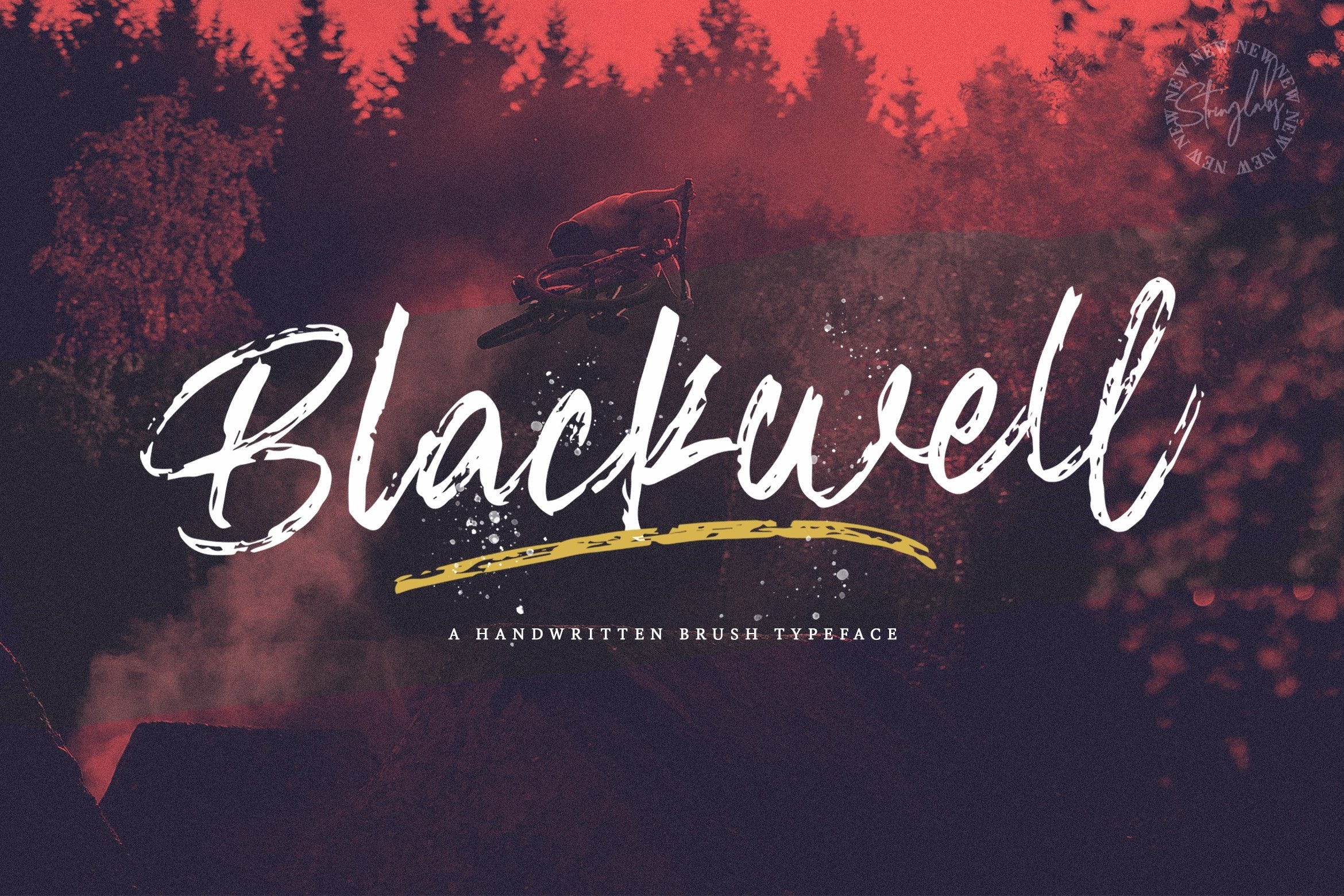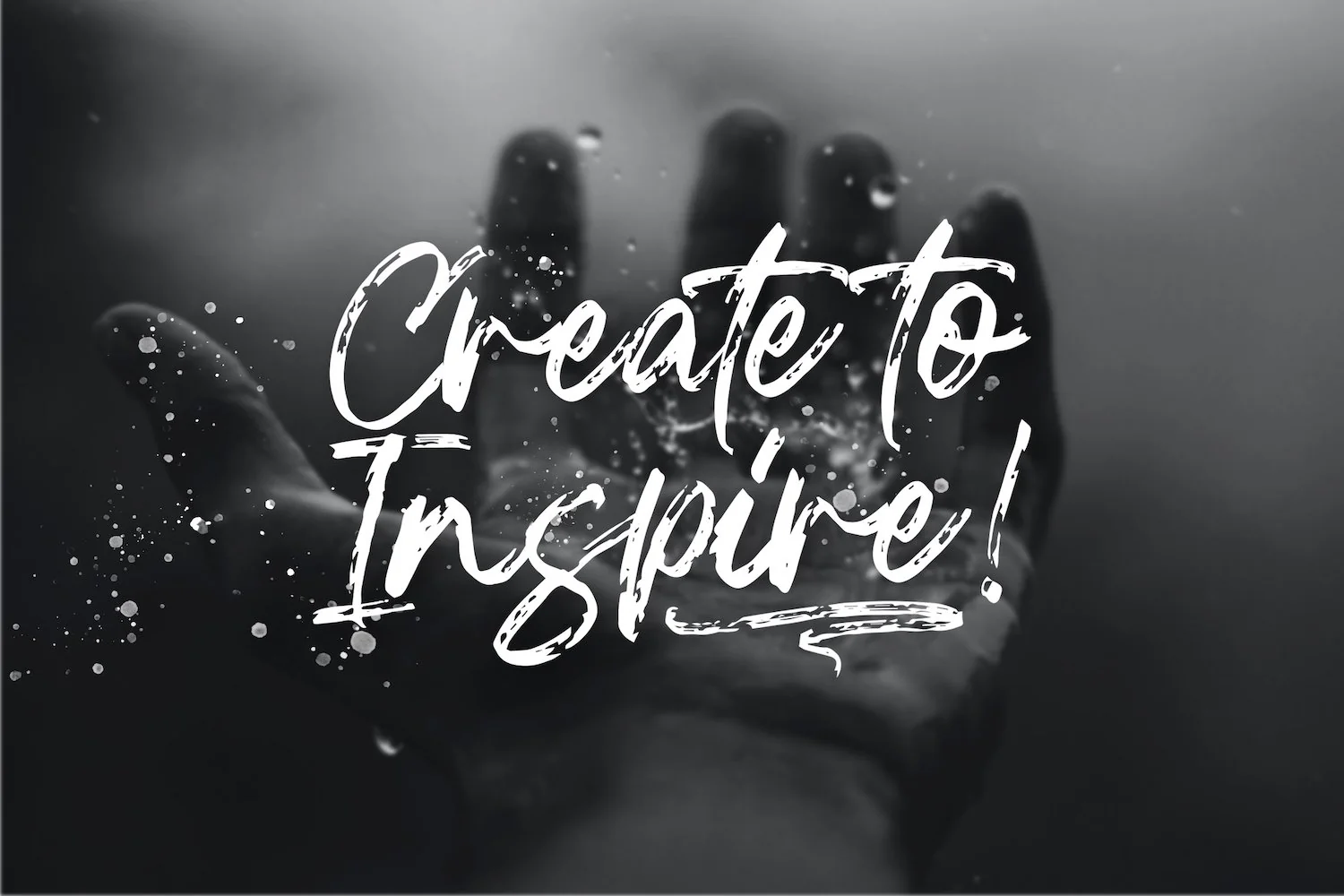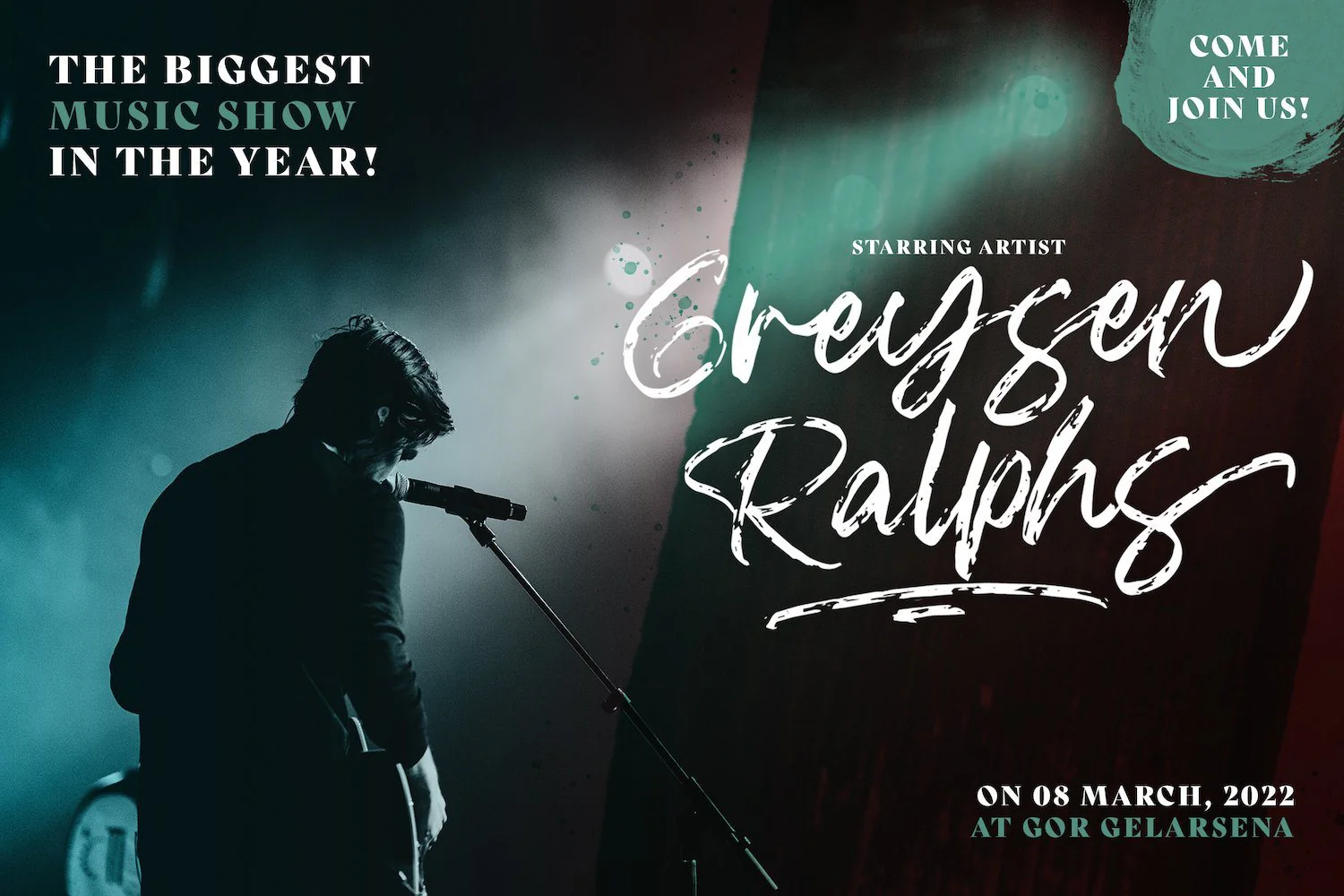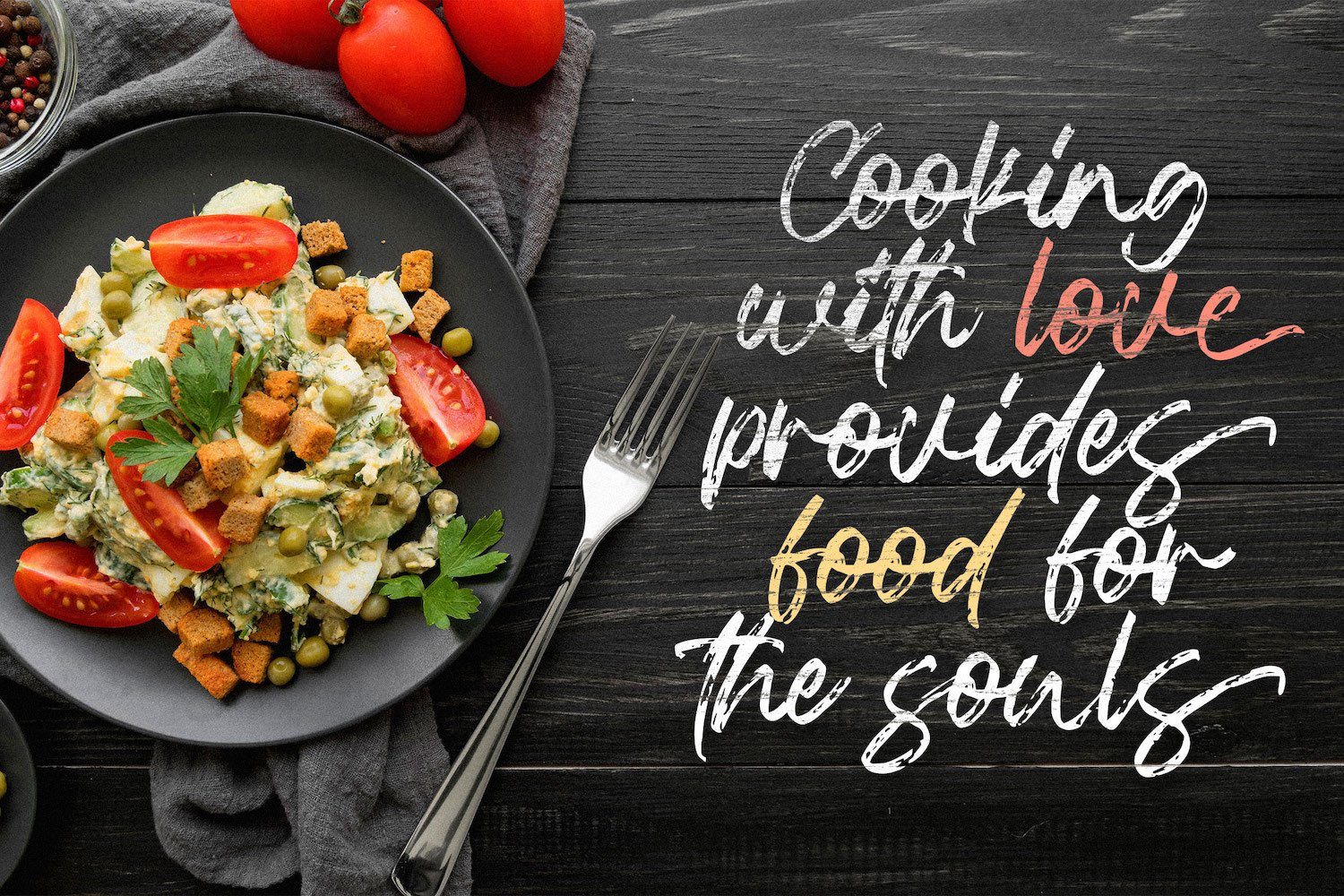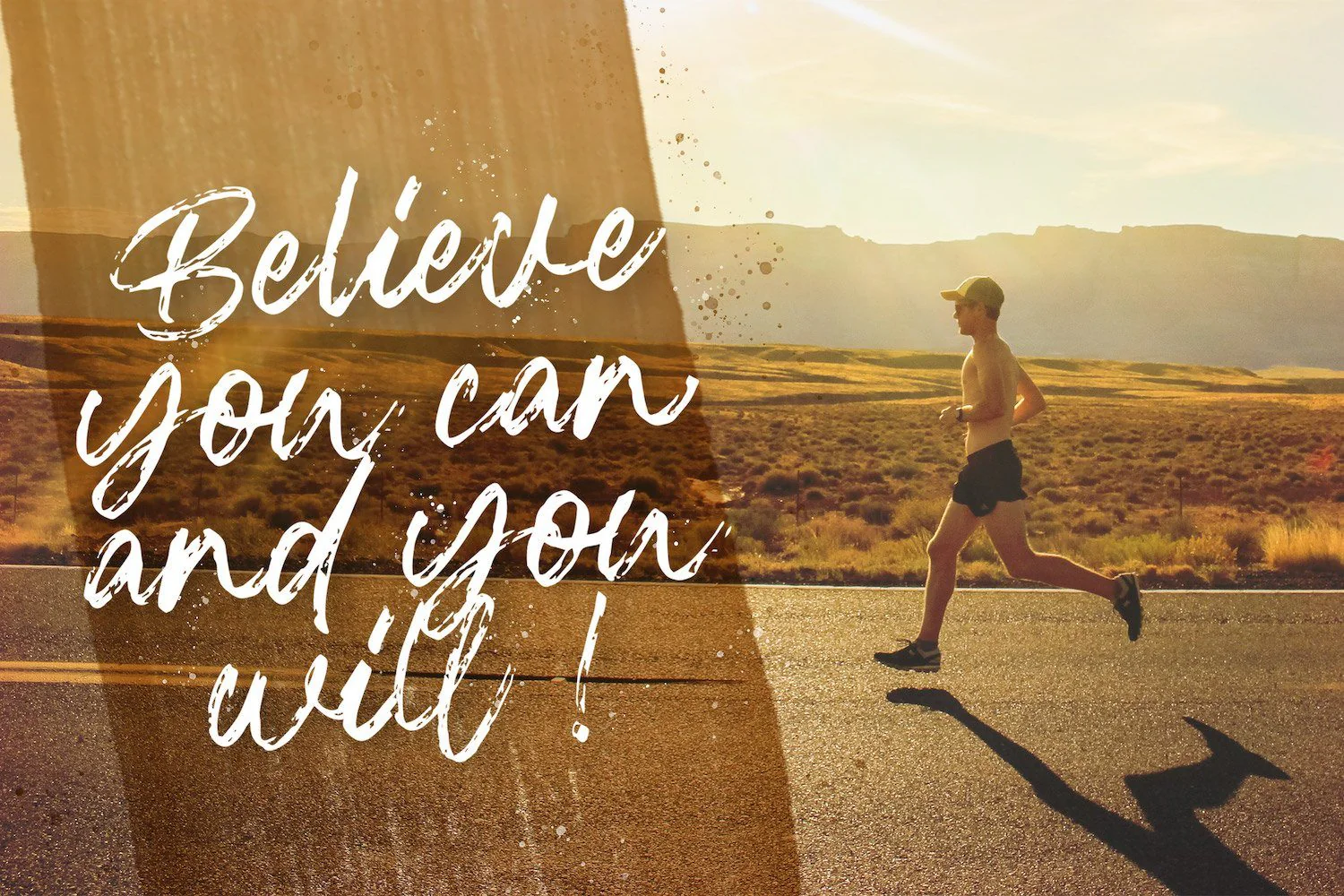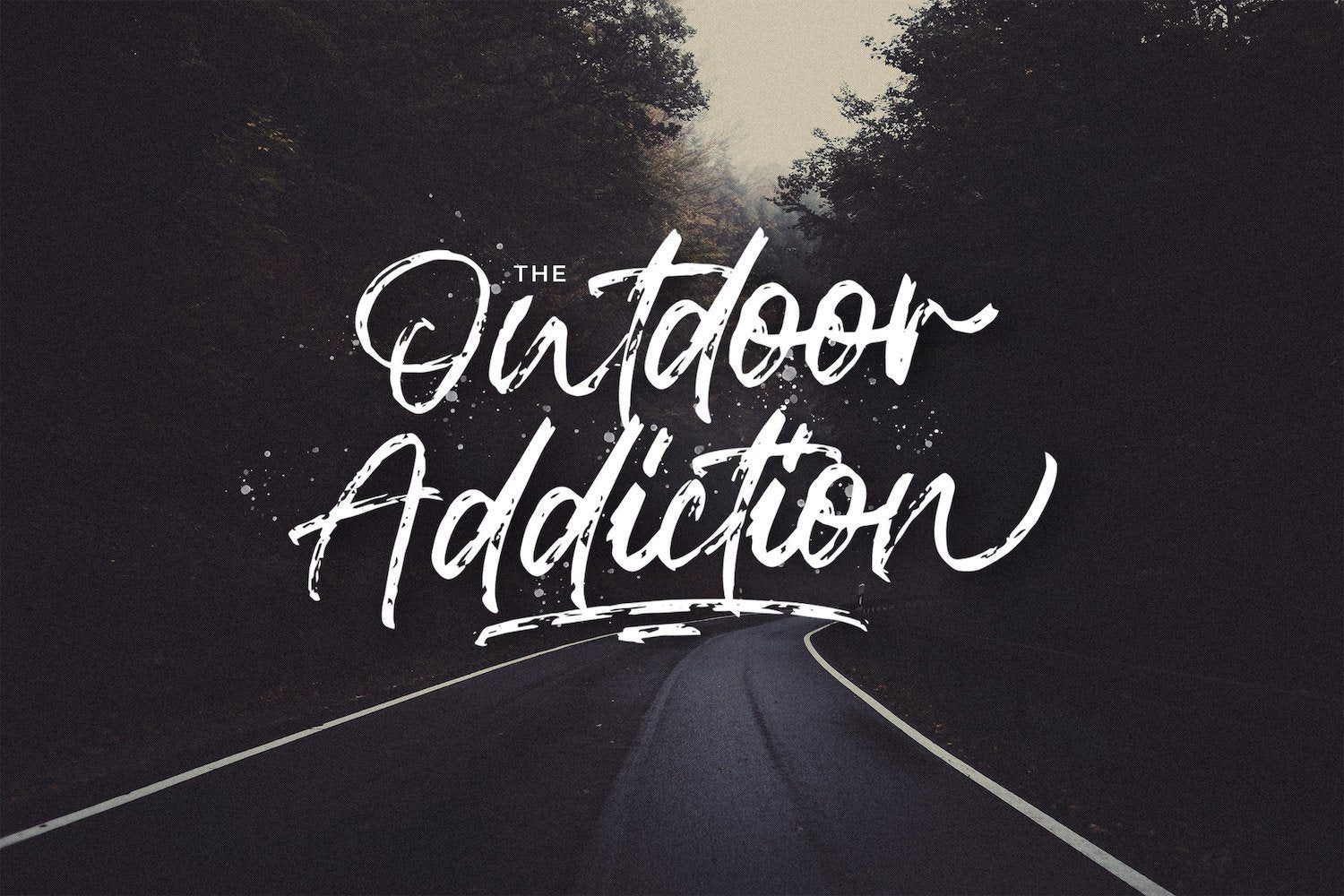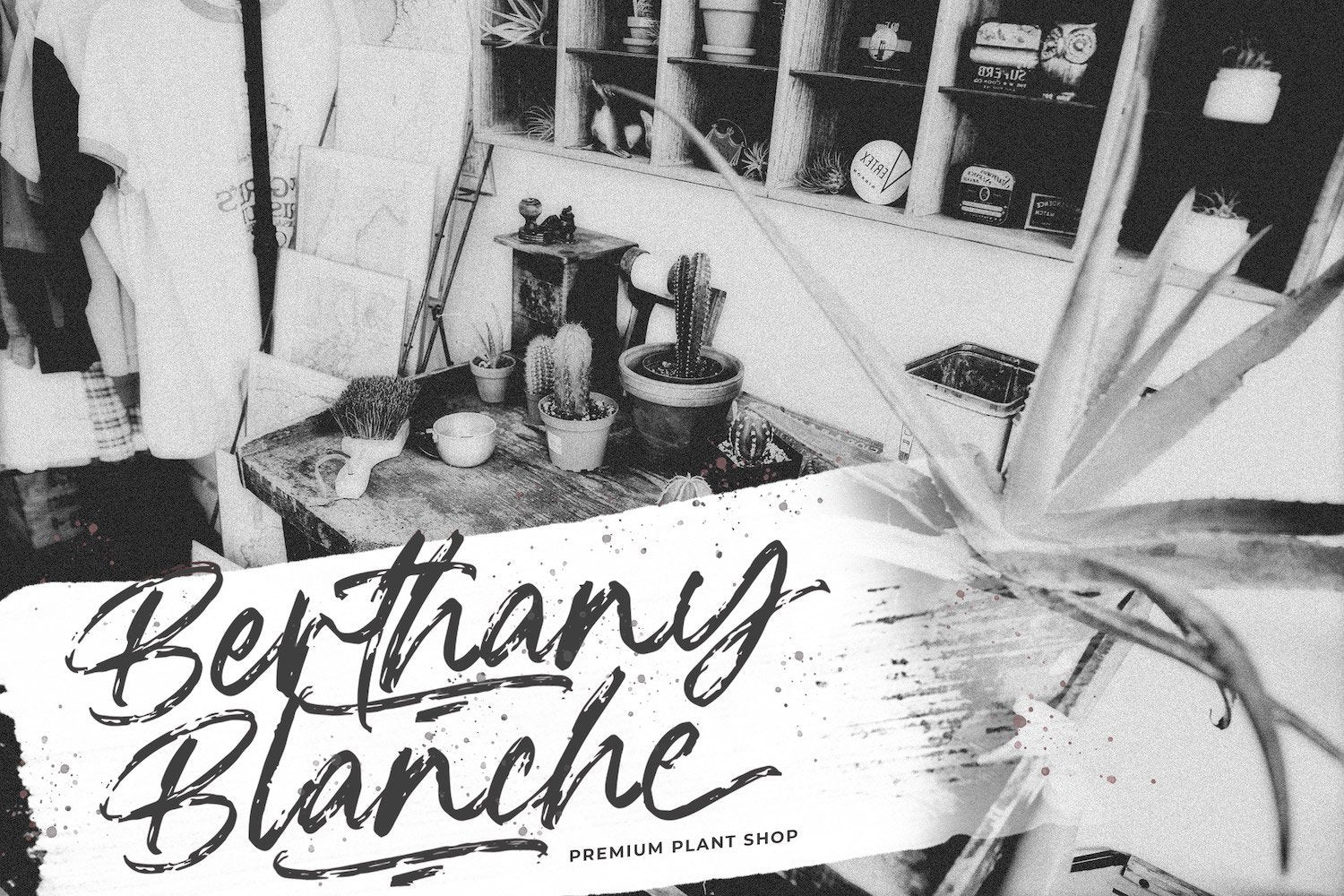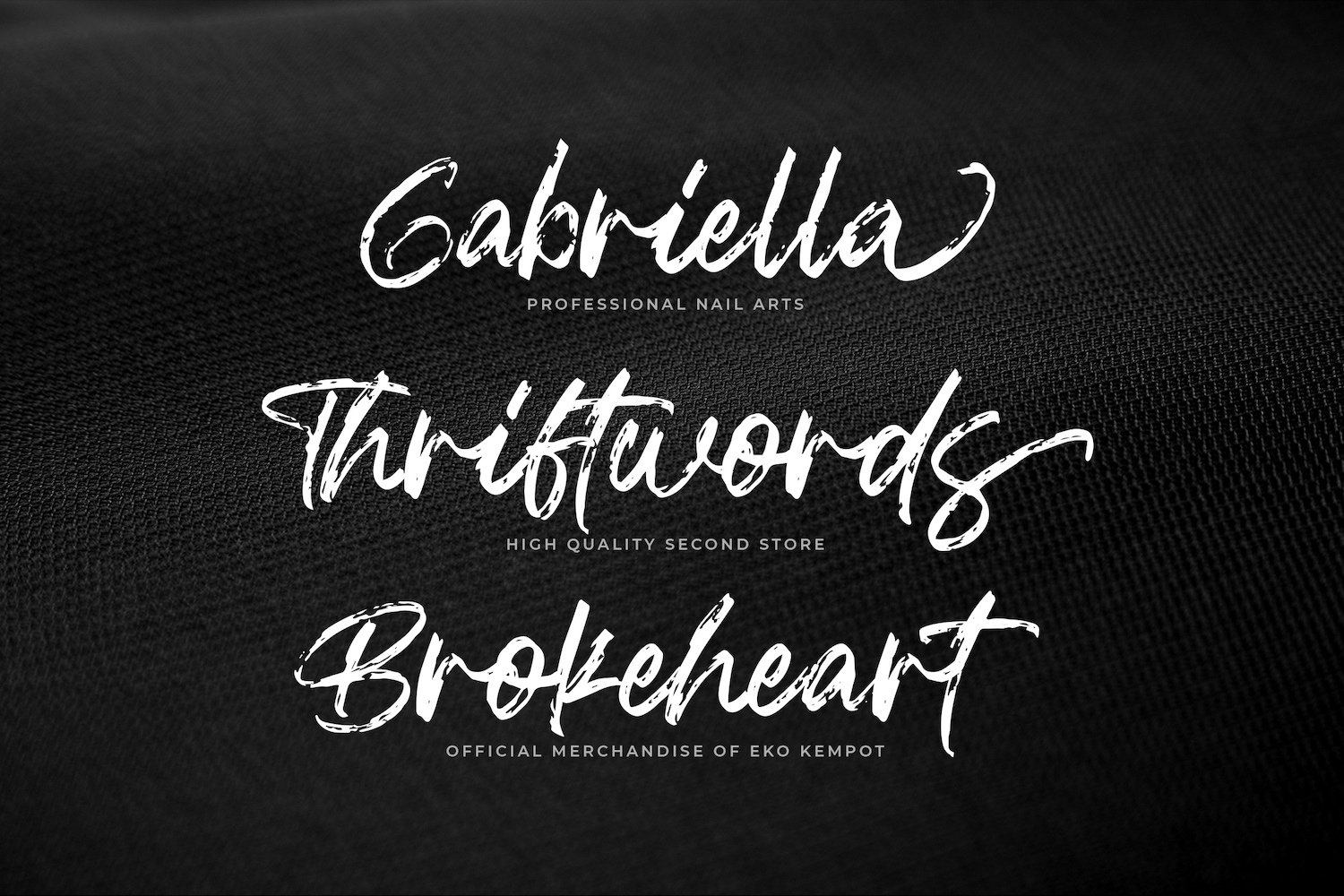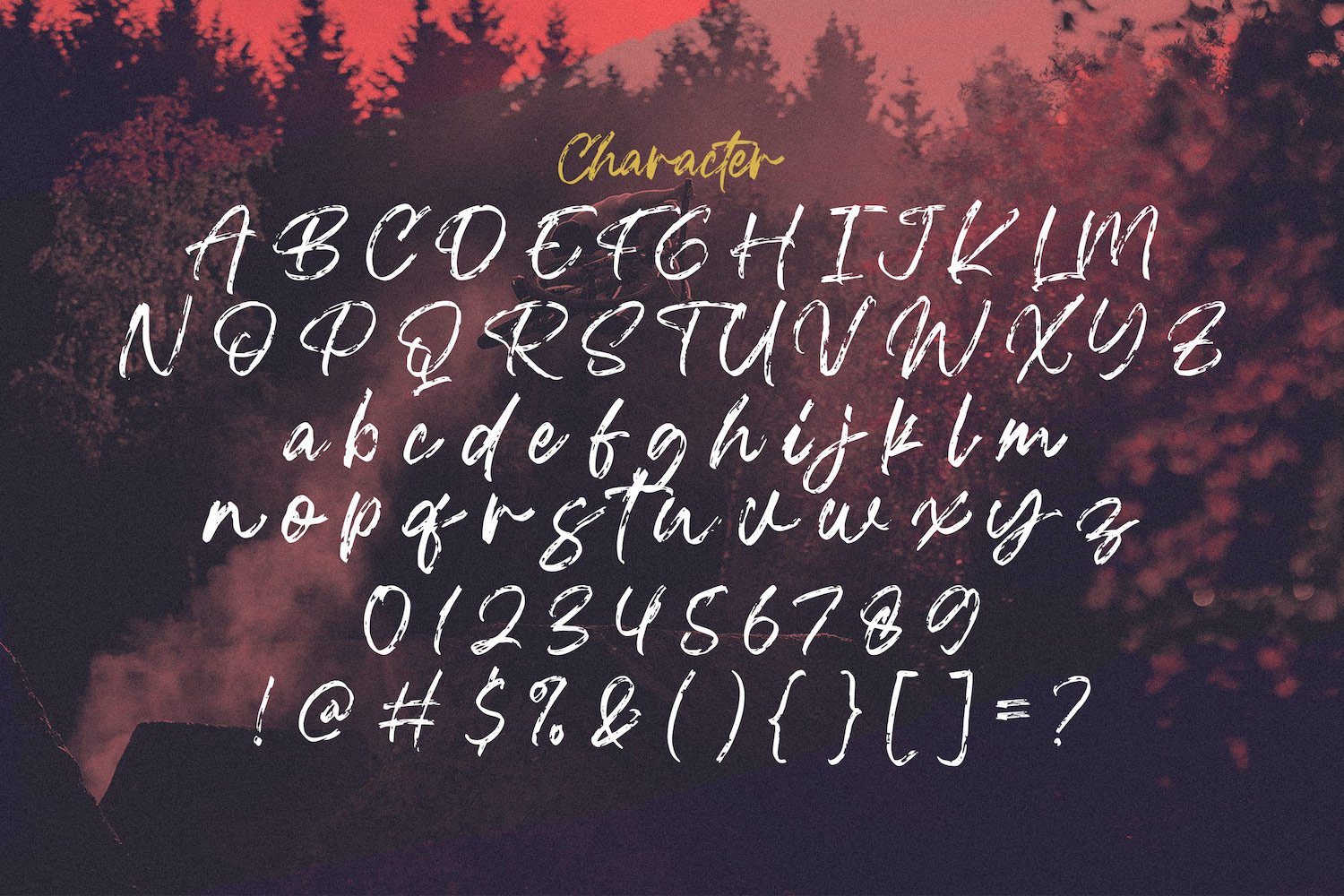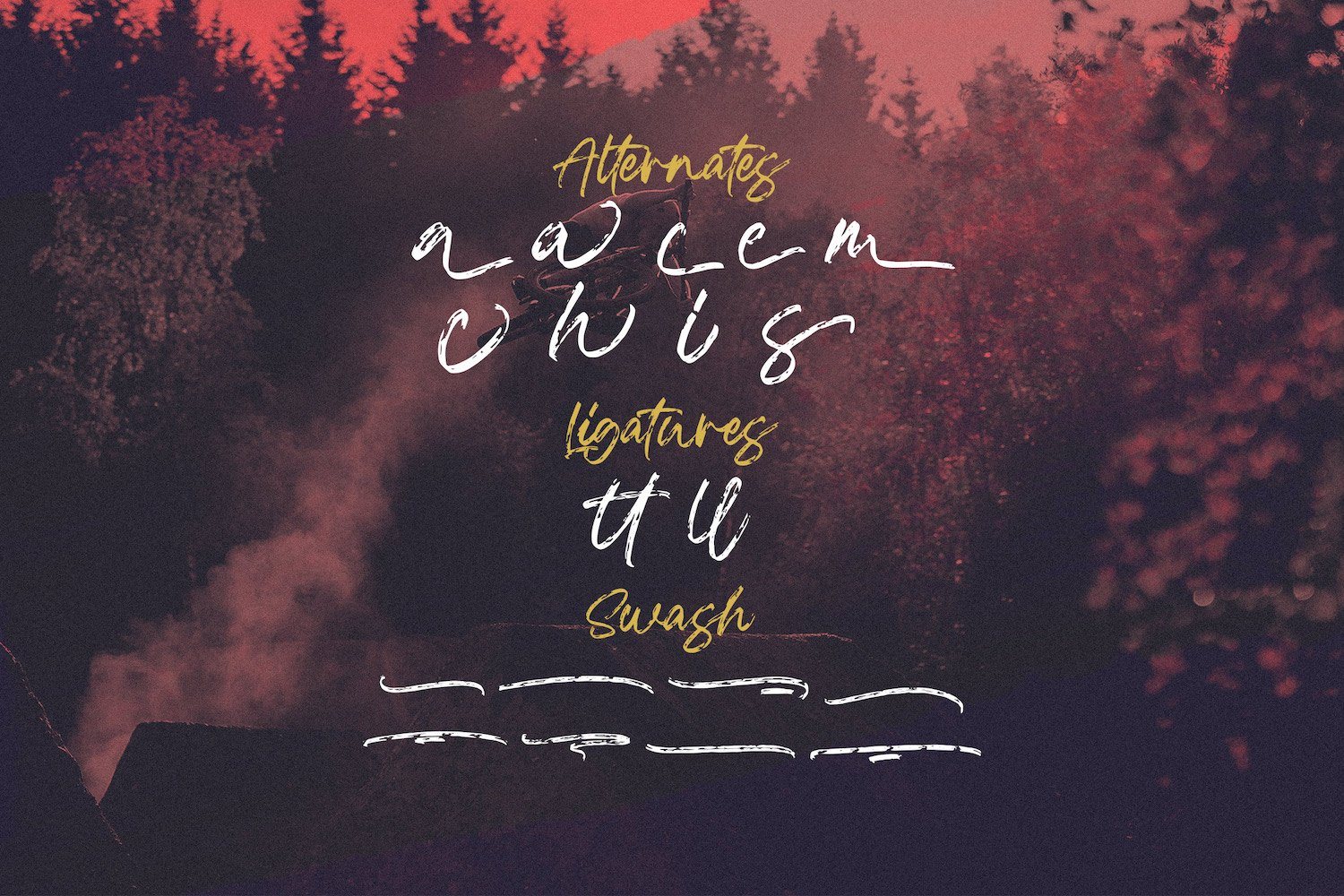
Blackwell - Textured Brush Font
Introducing Blackwell - Textured Brush Font
Blackwell is a textured handbrush font. Get inspired by its unique and beautiful style and add it to your favorite designs!
Introducing Blackwell - Textured Brush Font
Blackwell is a textured handbrush font. Get inspired by its unique and beautiful style and add it to your favorite designs!